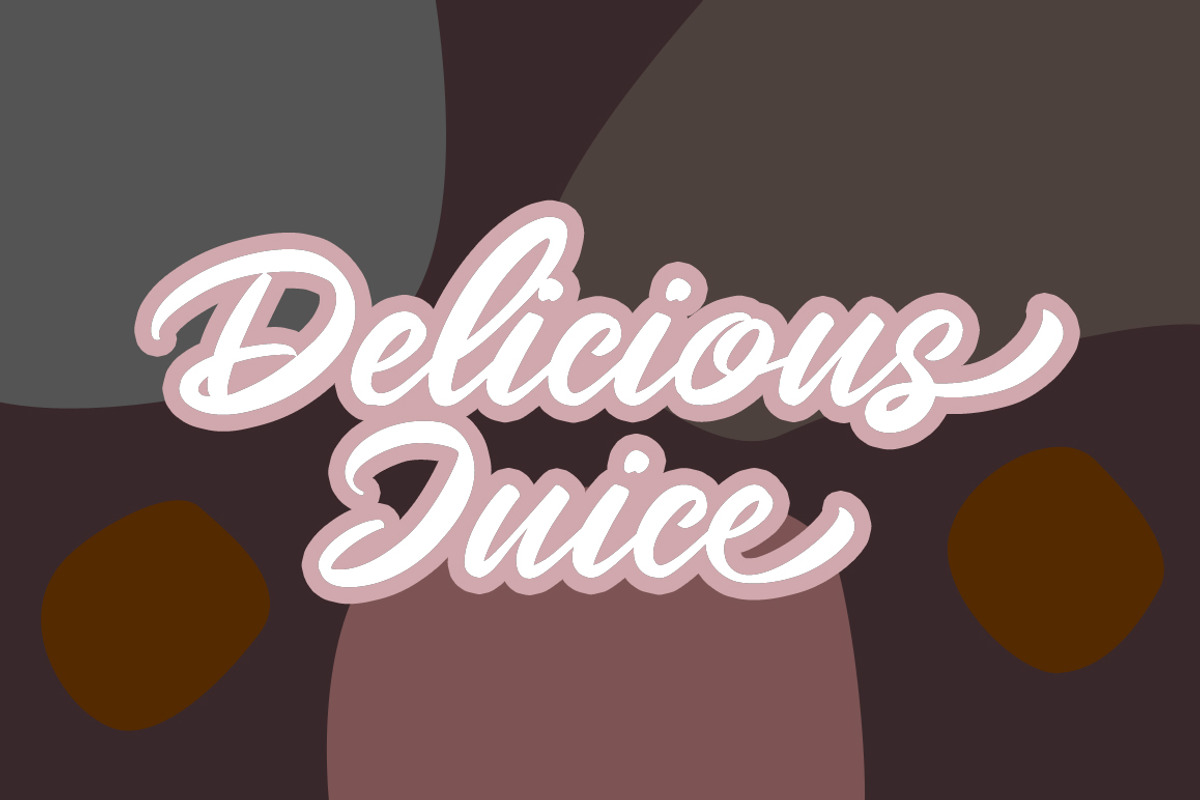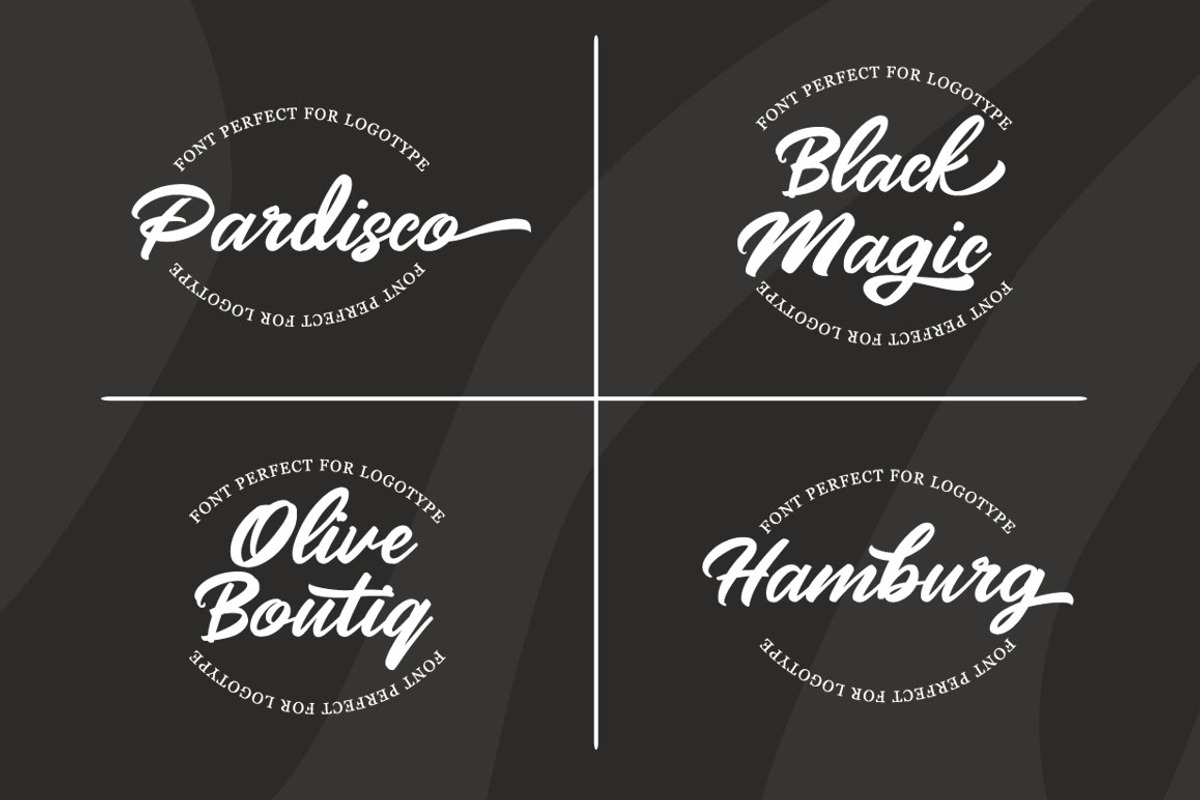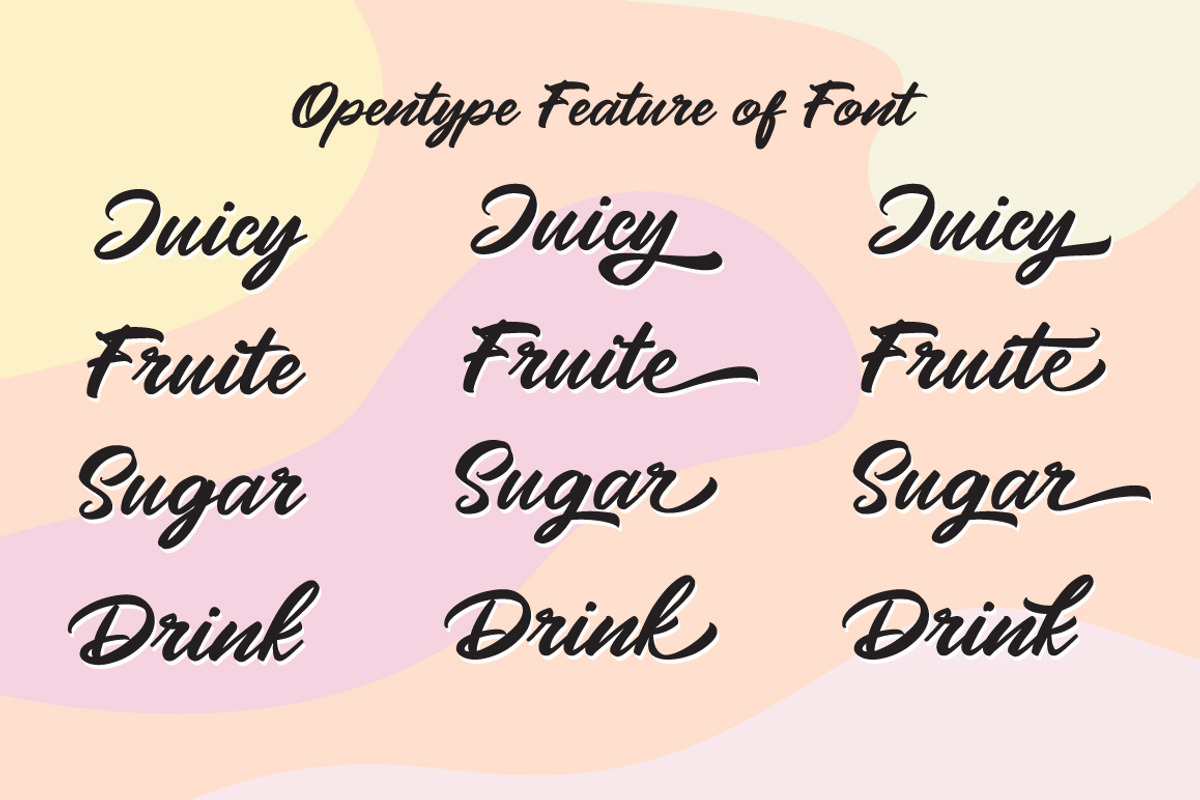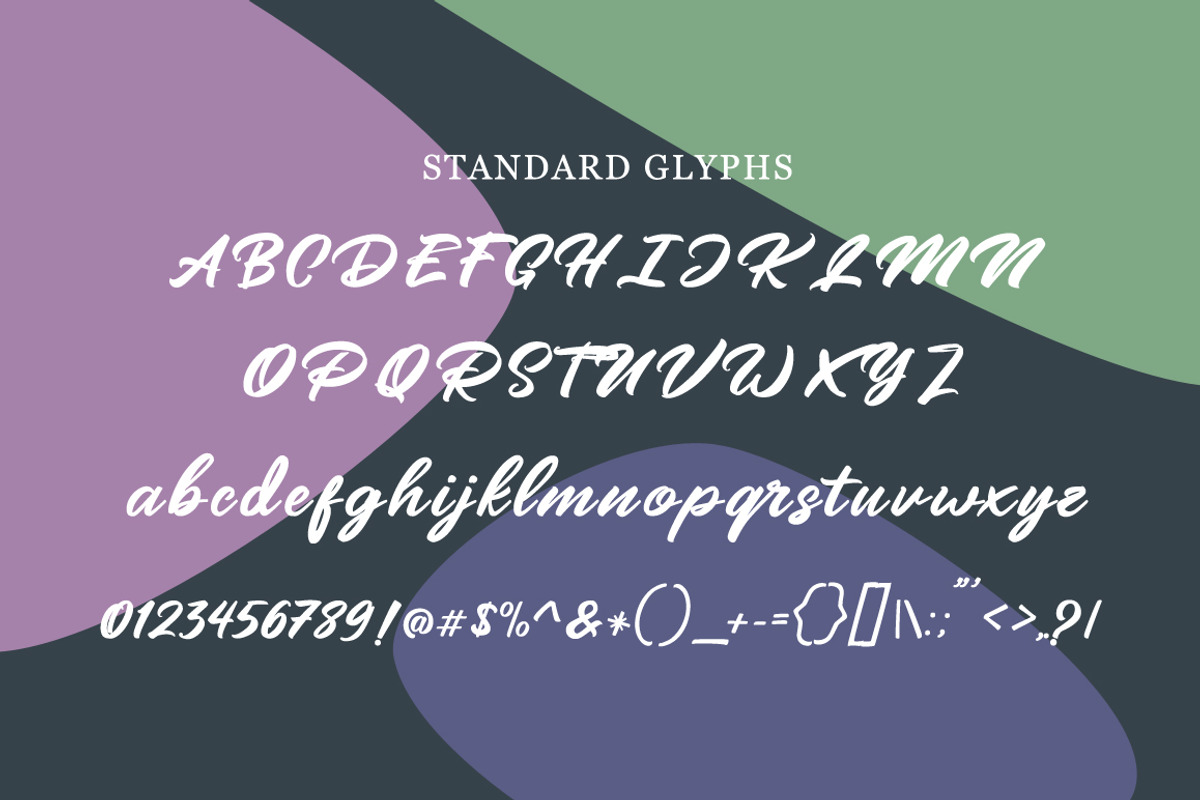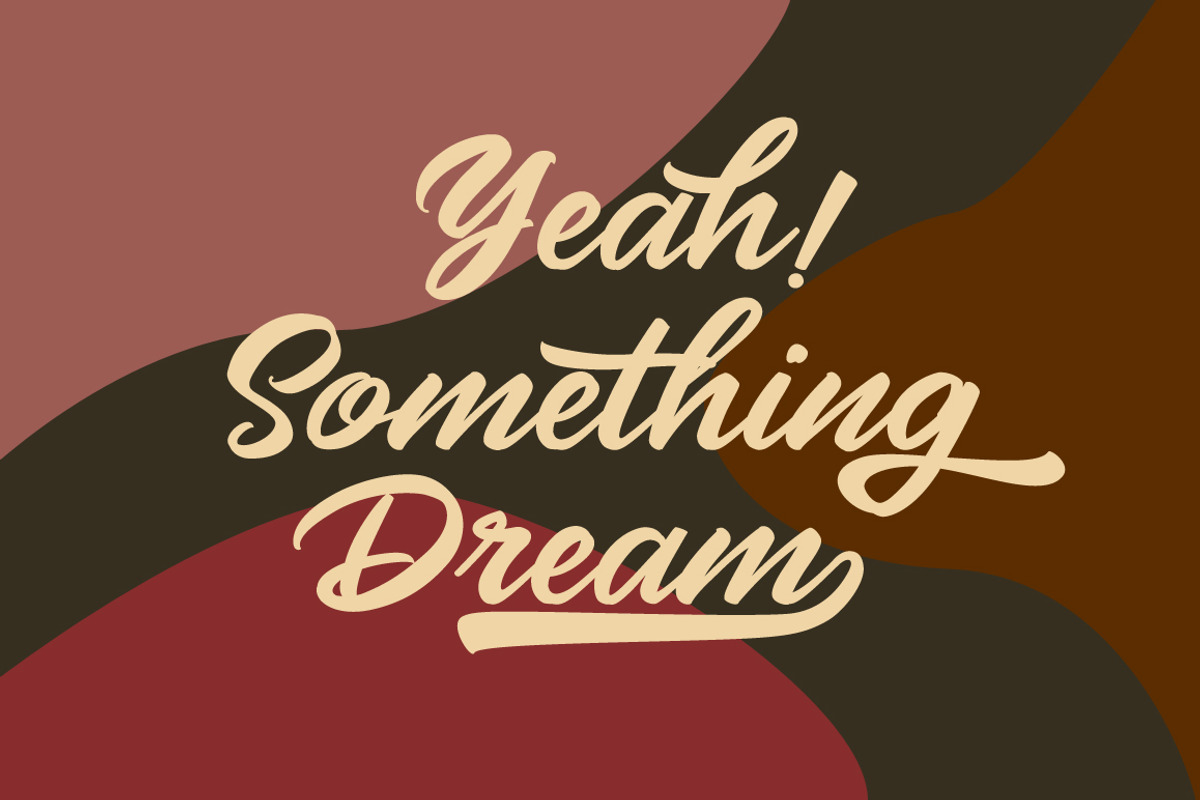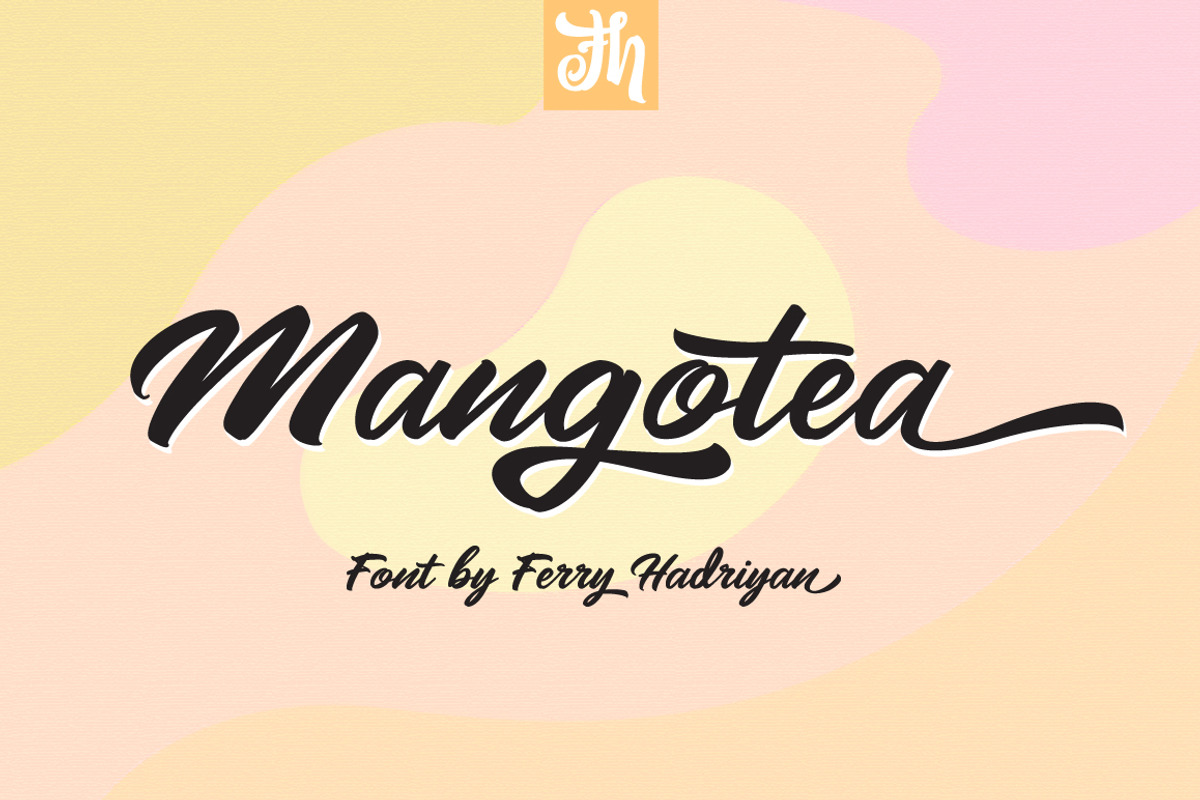
Mangotea - Script Font
Mangotea Script is Bold Script Brush Font with Handlettering Brush Style, with opentype feature include of the font. Suitable for design, element design, wedding, event, t-shirt, logo, badges, sticker, and awesome work, etc...
Feauture Of The Font:
Open Type Features Fonts
Mangotea - Script Font by FHFont fits naturally into Branding, posters, packaging, typography.